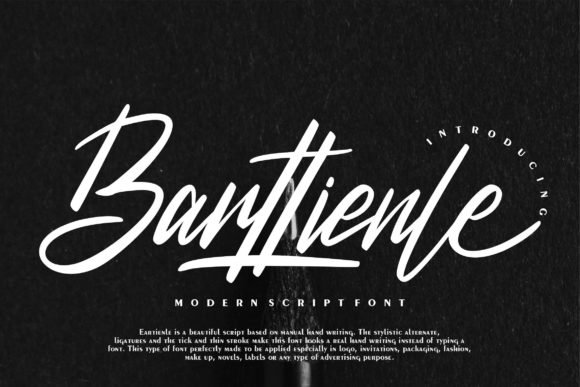
Barttienle Font Font – Free Download Introduction to Barttienle Font Font Fonts play a crucial role in design, and the Barttienle Font font is a typeface that brings both character and versatility to any project.…